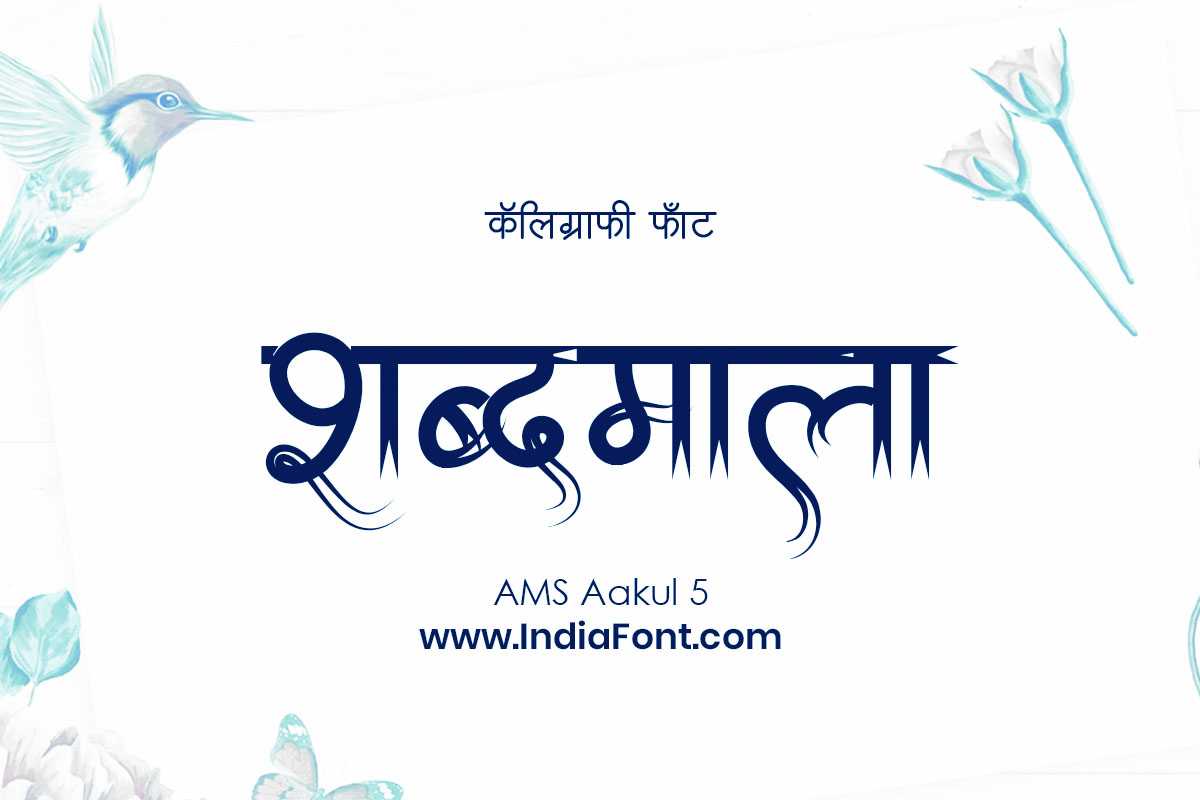
AMS Aakul 5
AMS Aakul 5 empowers your designs to stand out from the crowd. Whether you're working on posters, packaging, or digital graphics, this font adds a contemporary edge that captures attention and leaves a lasting impression.
AMS Aakul 5 used in wedding and business design
About AMS Aakul 5 Font
AMS Aakul 5 empowers your designs to stand out from the crowd. Whether you're working on posters, packaging, or digital graphics, this font adds a contemporary edge that captures attention and leaves a lasting impression. This decorative font combines elegance with functionality, making it perfect for various design applications.
AMS Aakul 5 is a professionally crafted decorative typeface that brings clarity and style to your projects. Designed with attention to detail, it supports hindi and marathi characters flawlessly.
Whether you're working on invitations, logos, business-cards-stationery, or other creative projects, AMS Aakul 5 delivers consistent performance across both digital and print media. This carefully designed typeface ensures readability and visual appeal in all your design work.
About AMS Aakul 5 Typography Style
AMS Aakul 5 is a professionally crafted decorative font that exemplifies modern Hindi typography design. This free font is perfect for designers seeking professional branding and logo design projects.
Available in 1 weight and supporting hindi, marathi scripts, AMS Aakul 5 offers exceptional versatility for both digital and print media. Whether you're working on invitations, logos, business-cards-stationery, this carefully designed typeface ensures consistent quality and professional results across all your typography projects.